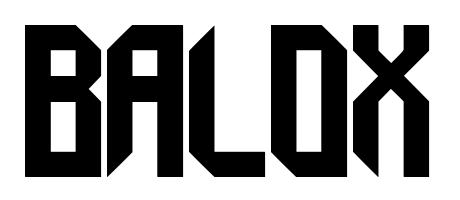
Balox
By Upan Sulfan
Balox: A bold, sans-serif typeface with a distinct geometric feel. Each letter is composed of sharp, angular lines and right angles, creating a strong, almost monolithic presence. The letters are tightly packed, giving the word a solid, unified look – perfect for a logo demanding attention and authority. It suggests power and modernity.